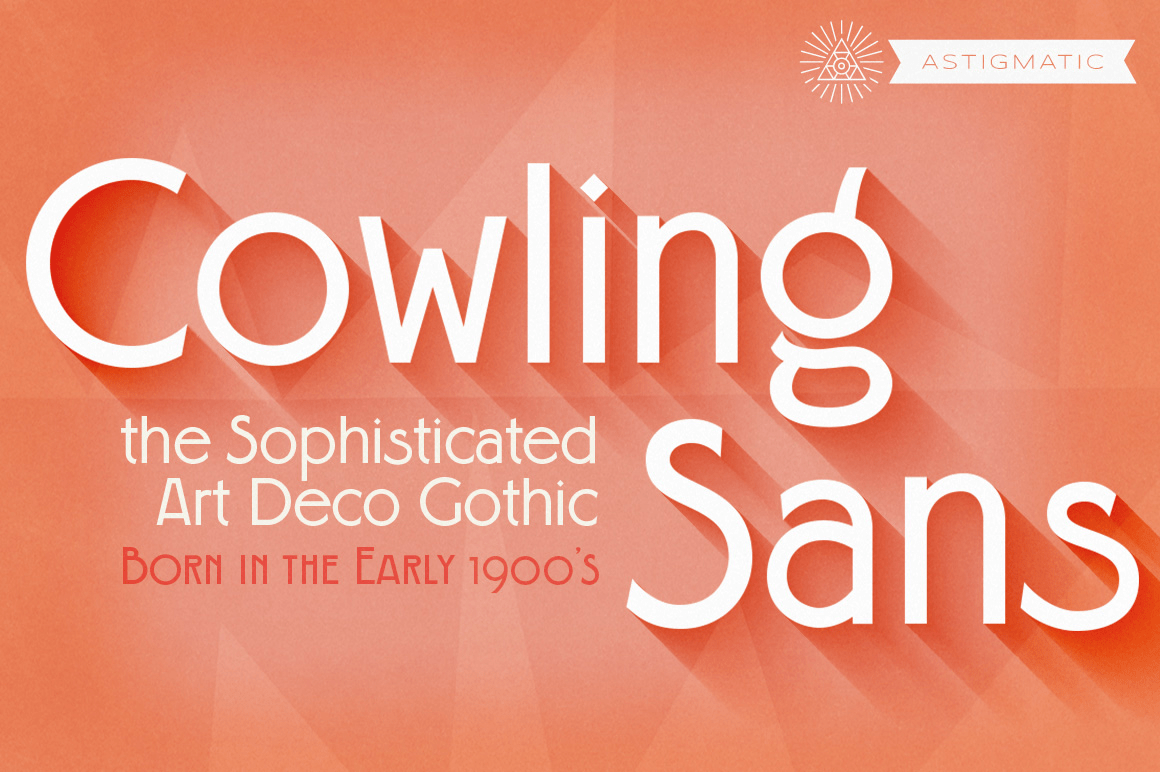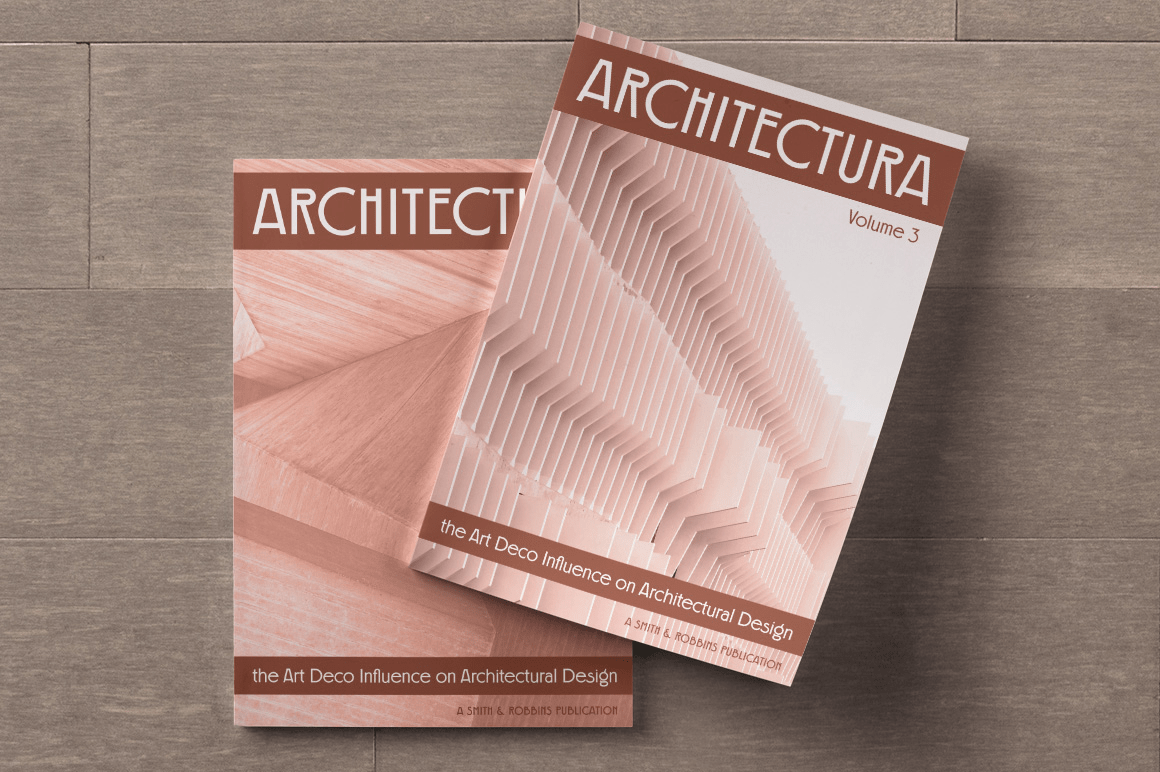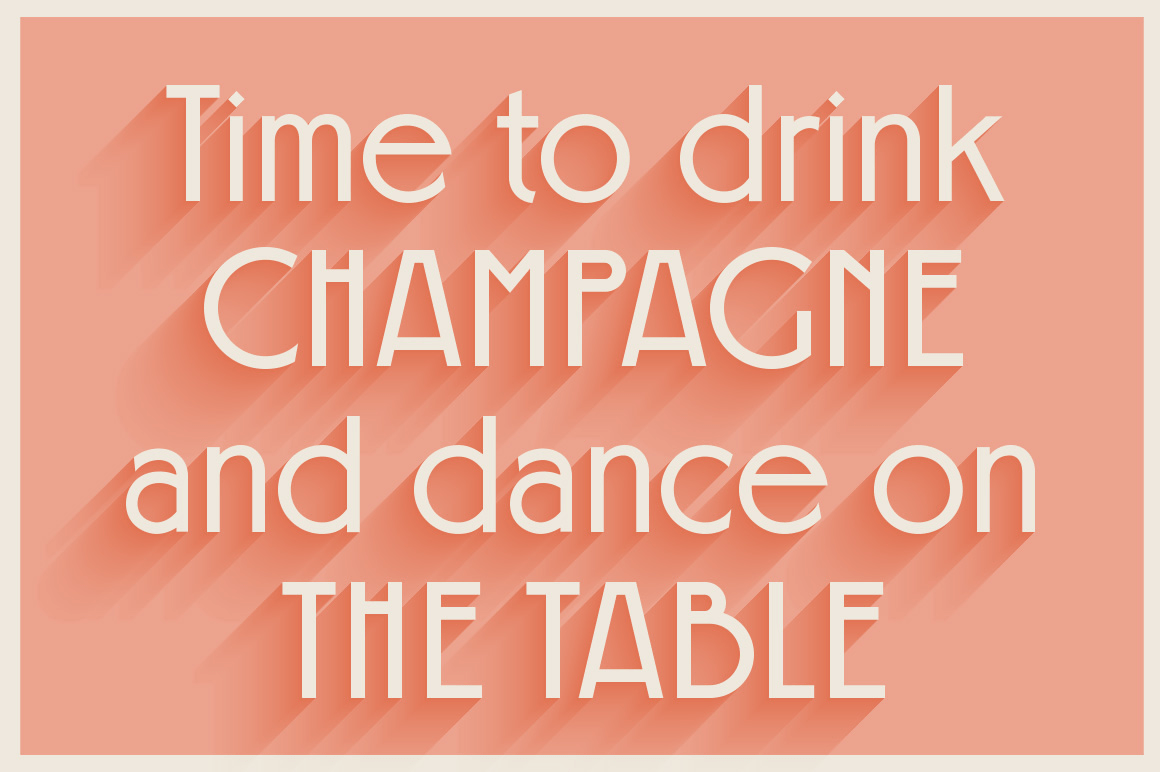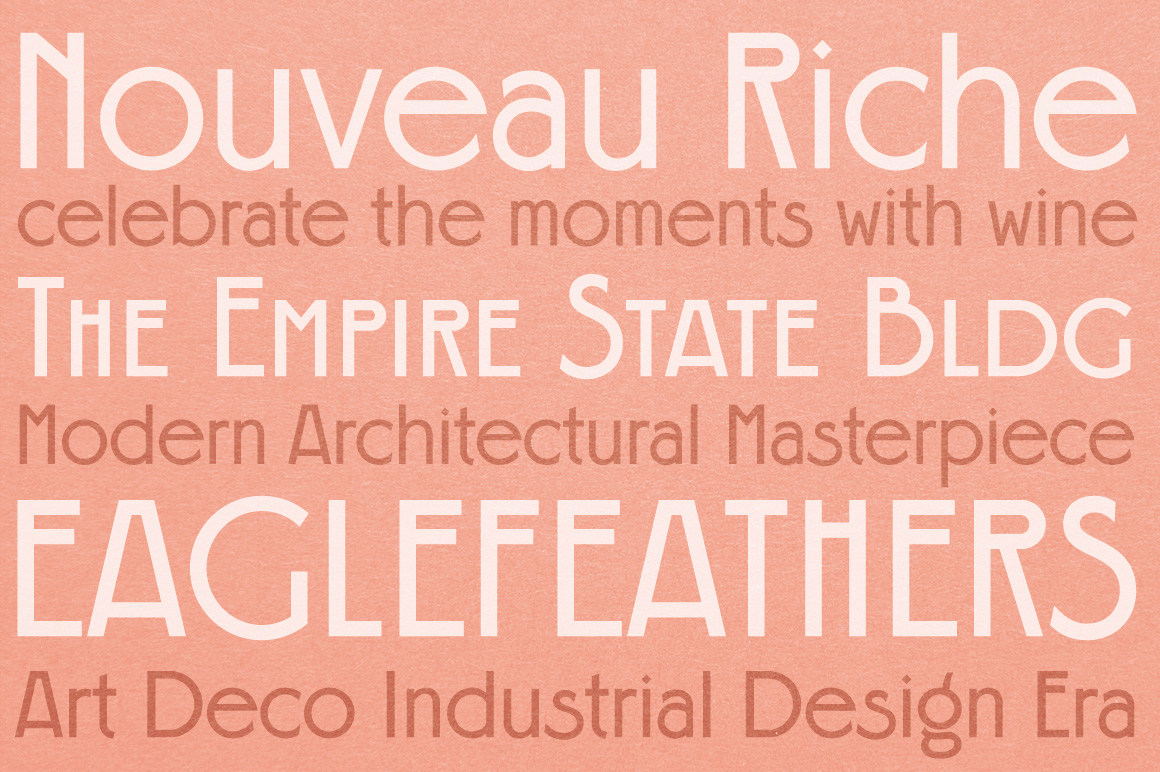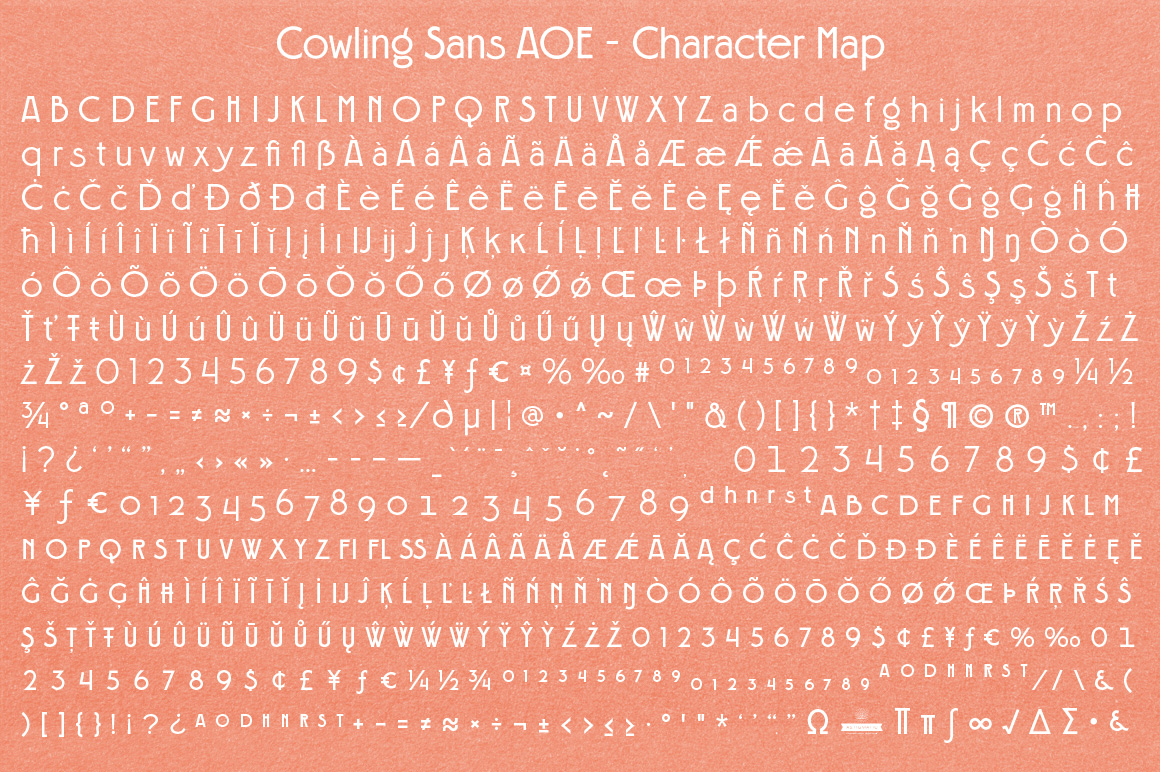
Cowling Sans AOE
Cowling Sans AOE is a charming Art Deco architectural style typeface. It is the cleaned-up, refined revival and elaboration of a lettering design from "Lettering for Commercial Purposes" by Wm. Hugh Gordon published in 1918. What began as a basic character set of Capitals, lowercase, and two styles of ampersand has been expanded to a full character set including unlimited fractionals, superiors & inferiors, ordinals, tabular, proportional, and oldstyle figures, and an expanded language glyph set, all with a smallcaps and Caps to Smallcap set to match.
This lettering style exudes the charm of its era with every word set in it by way of the small details that set it apart from other sans typestyles.